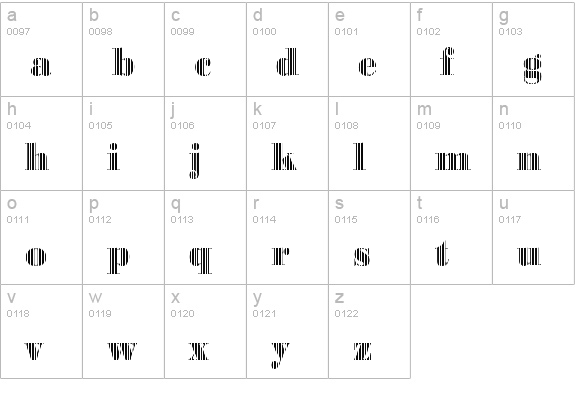
BodoniVert2-Regular is the standard, neutral variant in the BodoniVert2 typeface family \xE2\x80\x94 well suited to general body text, paragraphs, and standard typographic work.
BodoniVert2-Regular is a stunning and elegant font that exudes sophistication and charm. Its sleek lines and classic design make it perfect for a wide range of projects, from branding to editorial design. The font features tall, vertical letterforms that command attention and create a sense of modernity. One of the best things about BodoniVert2-Regular is that it is free for personal and commercial use. You can easily download this versatile font at FontsMarket.com and start using it in your projects today. Whether you're designing a logo, creating a poster, or working on a website, BodoniVert2-Regular is sure to elevate your work and bring a touch of class to any design.